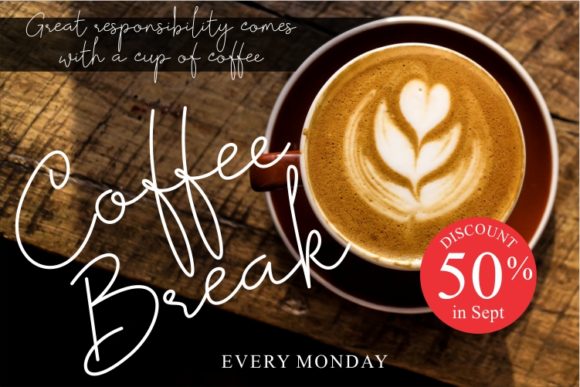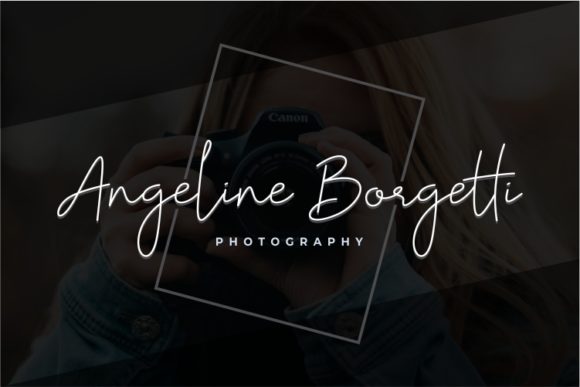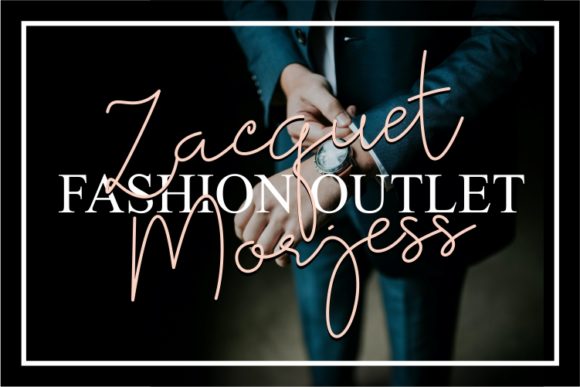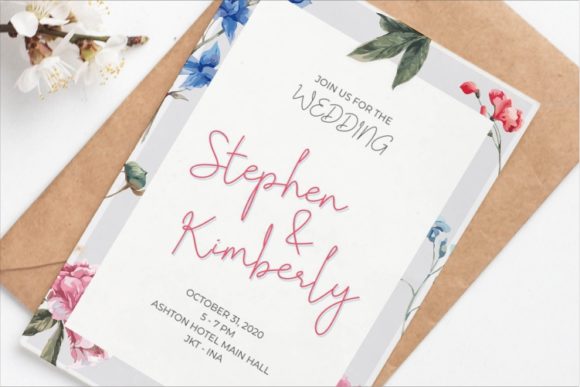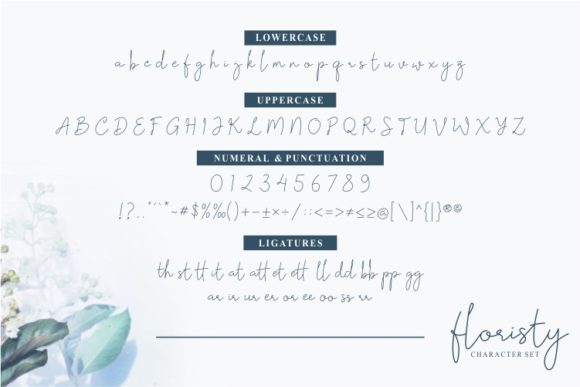
About Floristy Font
Introducing Floristy: The Elegant and Modern Script Font
Experience the beauty of Floristy, a font that exudes elegance and modernity in its script style. With its clean, thin, and smooth vibe, Floristy is sure to be a hit for any design you add it to. Embrace the versatility of Floristy as it adds a touch of sophistication to your creative projects.
Floristy’s elegant and modern appeal brings a sense of refinement and grace to your designs. Its script letterforms flow with a seamless beauty, making your text exude a sense of sophistication.
As a clean, thin, and smooth font, Floristy carries a contemporary edge that fits perfectly with modern design trends. Each letter embodies a sense of simplicity and sleekness, adding a touch of understated elegance to your work.
The font’s versatility shines through as it seamlessly complements various design themes. Whether you’re creating logos, invitations, branding materials, or any other project, Floristy becomes the perfect choice to elevate your designs.
Embrace the sleek vibe of Floristy as you embark on your design journey. Let it be the font that elevates your work, creating a sense of modern elegance and beauty in every project.
As you explore the possibilities of Floristy, you’ll find it to be a font that enhances your projects to new heights. Its elegant and modern script beauty transforms your work, ensuring that your creations leave a lasting impression.
So, let Floristy be the font that elevates your design game. Embrace its clean, thin, and smooth vibe, and watch as your projects come to life with a touch of sophistication and modern allure. With Floristy as your go-to font, your designs will resonate with understated elegance, captivating your audience and leaving a lasting impression. Embrace the beauty of Floristy and create designs that are truly refined and timeless!